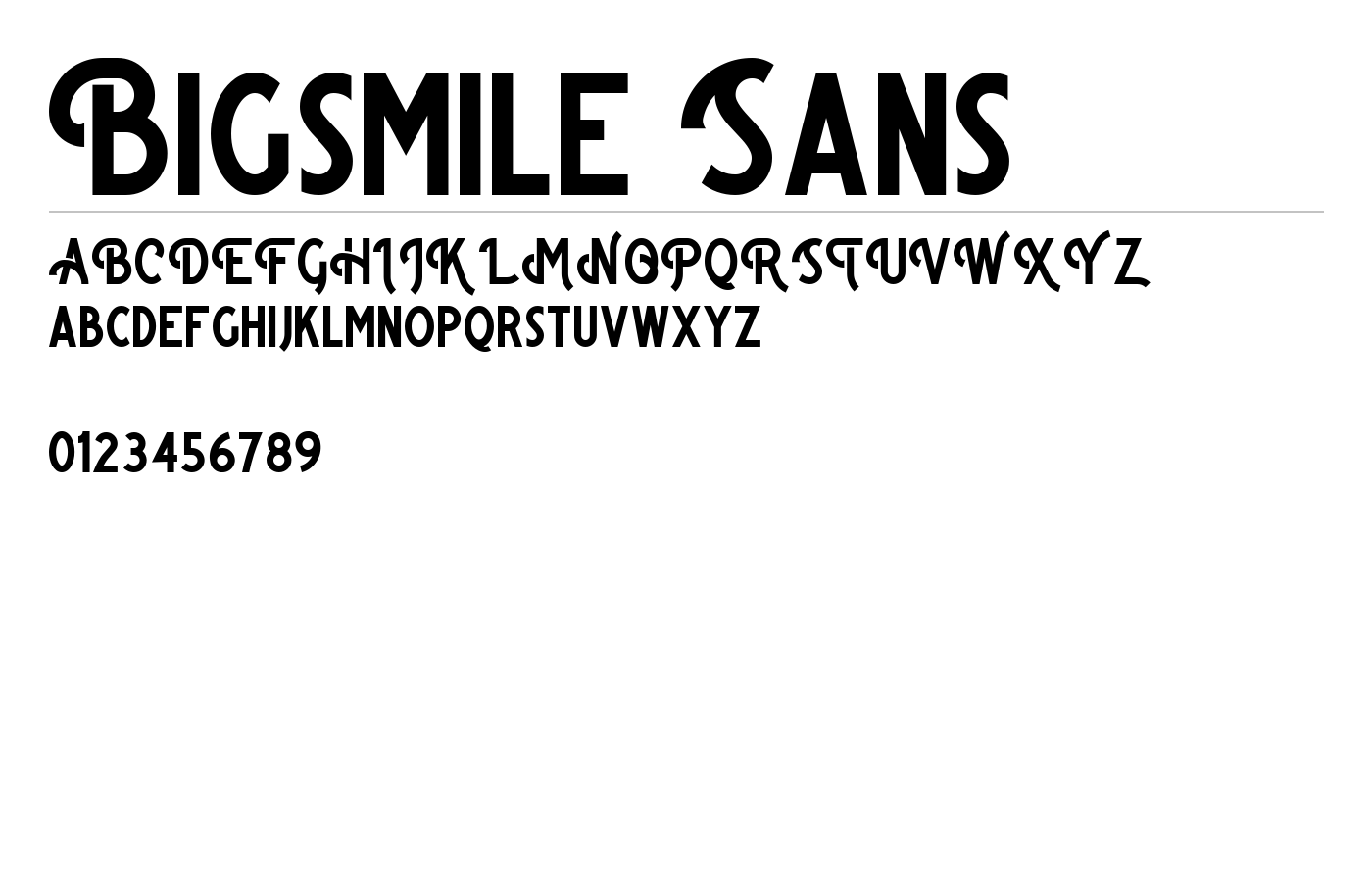
Bigsmile Sans is a bold and playful sans serif font featuring a mix of clean geometric shapes with whimsical, curved details, especially visible in the alternate versions of letters. Its tall, condensed letterforms with medium contrast and distinctive character flourishes give it a unique, friendly personality that balances modernity with charm. This font works well for eye-catching headlines, branding, and creative projects where a touch of fun and boldness is needed while maintaining readability.
Bigsmile Sans Font
About Bigsmile Sans Font